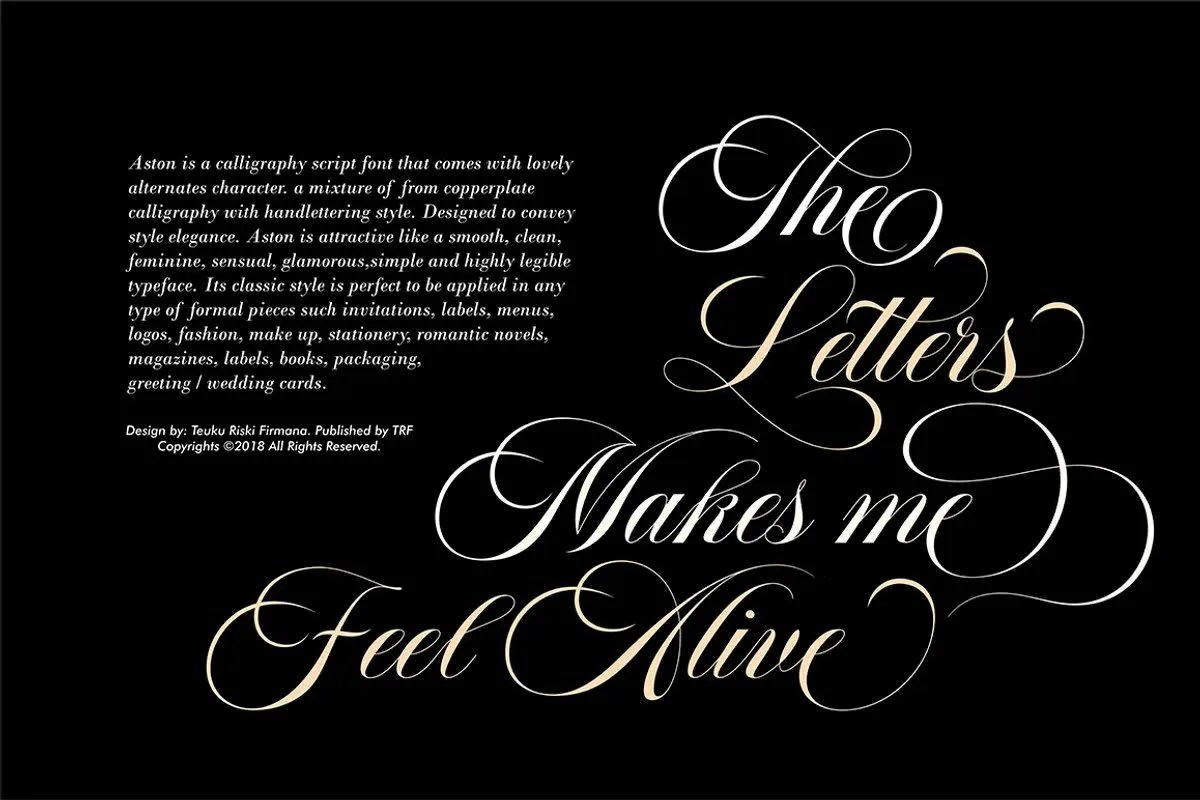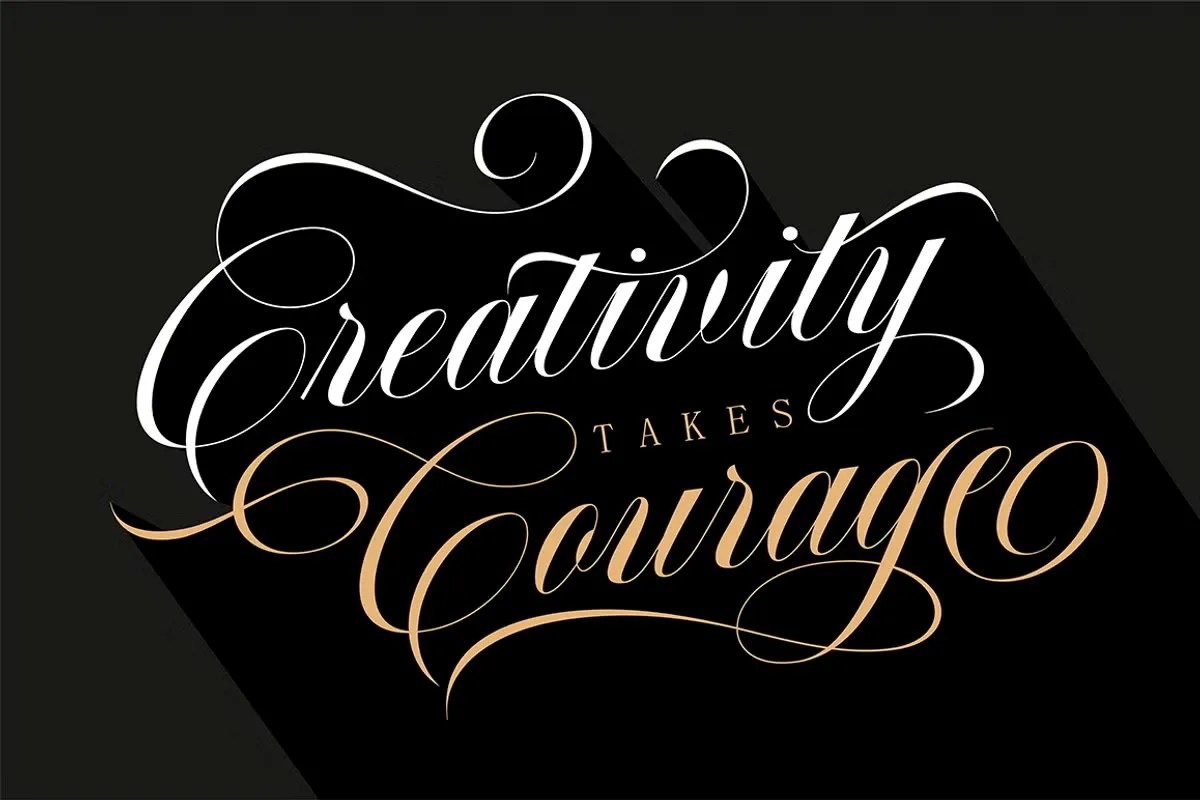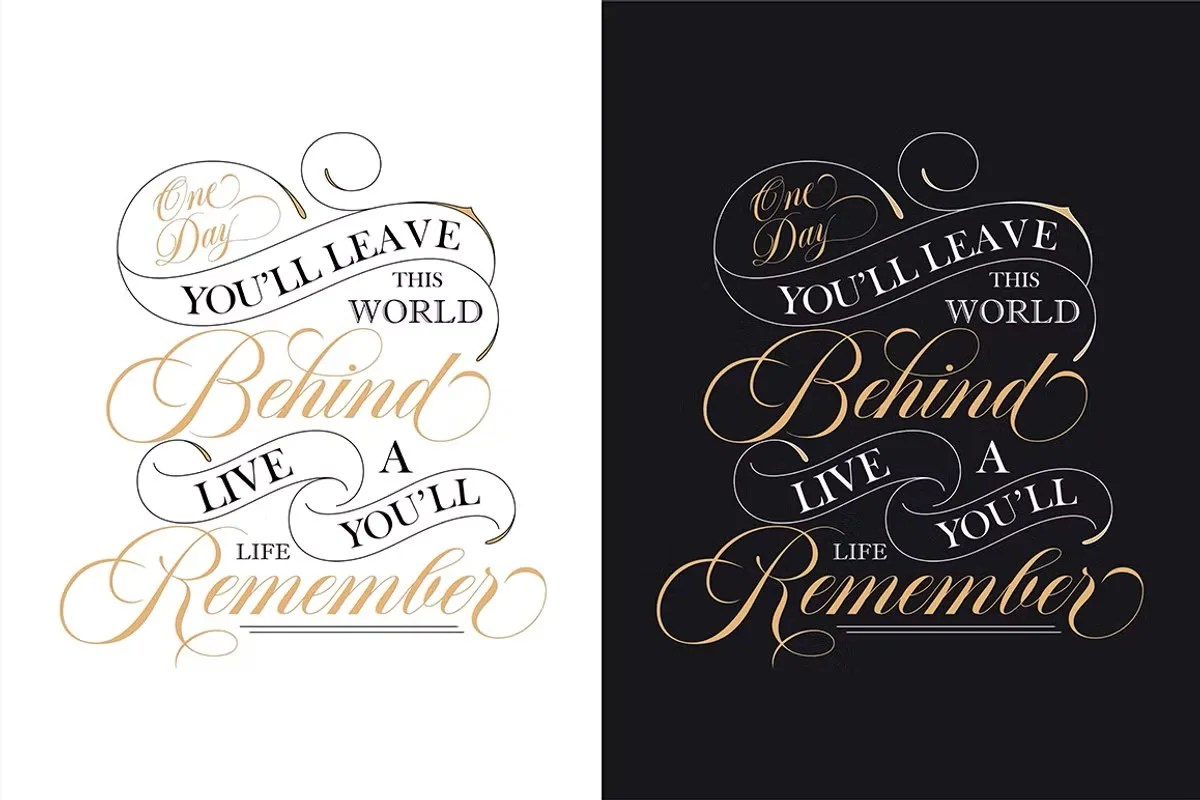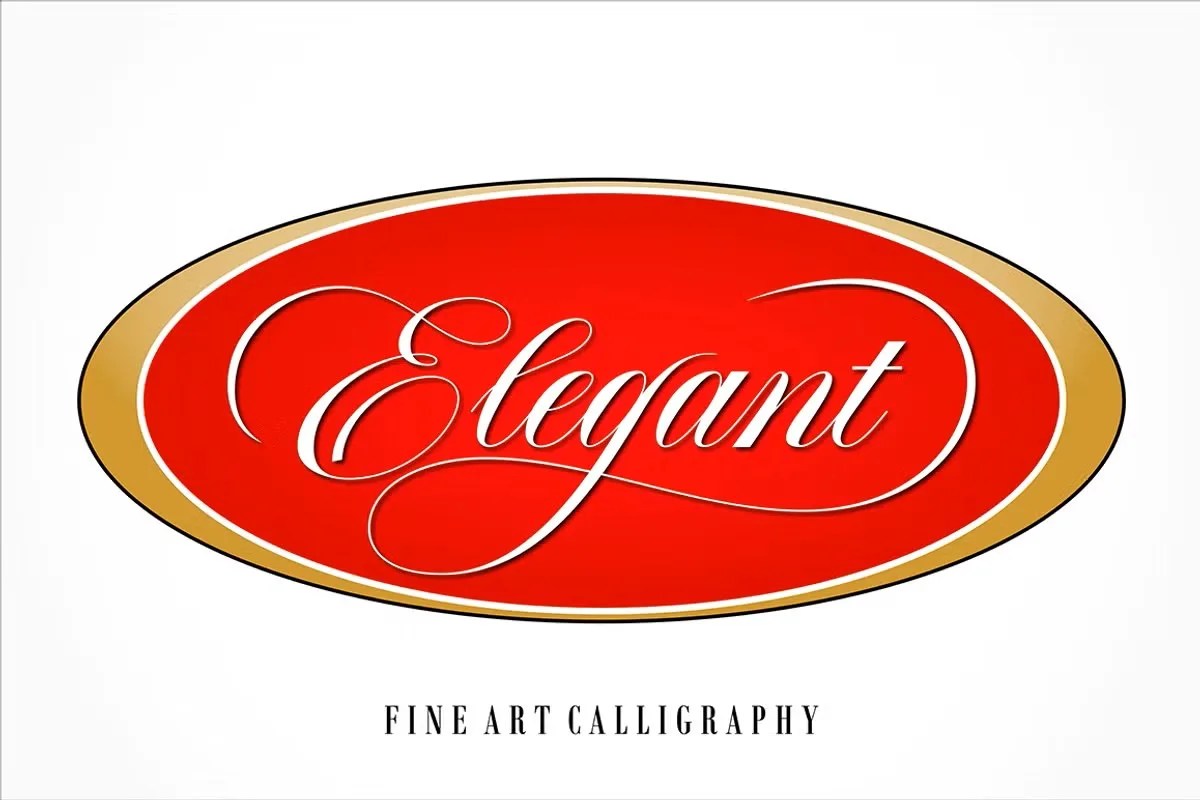
Aston by TRF is an elegant script font with smooth, flowing curves that capture a sense of sophistication and charm. Its handwritten style gives designs a personal and stylish touch, making it ideal for projects that require elegance and personality.
Perfect for wedding invitations, branding, greeting cards, product packaging, logos, and editorial design, Aston offers a refined look that enhances visual storytelling.
• Elegant script style
• Flowing, smooth letterforms
• Handwritten aesthetic for a natural look
• Works great in invitations and stationery
• Stylish option for branding and logos
• Enhances product packaging and labels
• Beautiful choice for editorial and fashion design
Aston
by
TRF